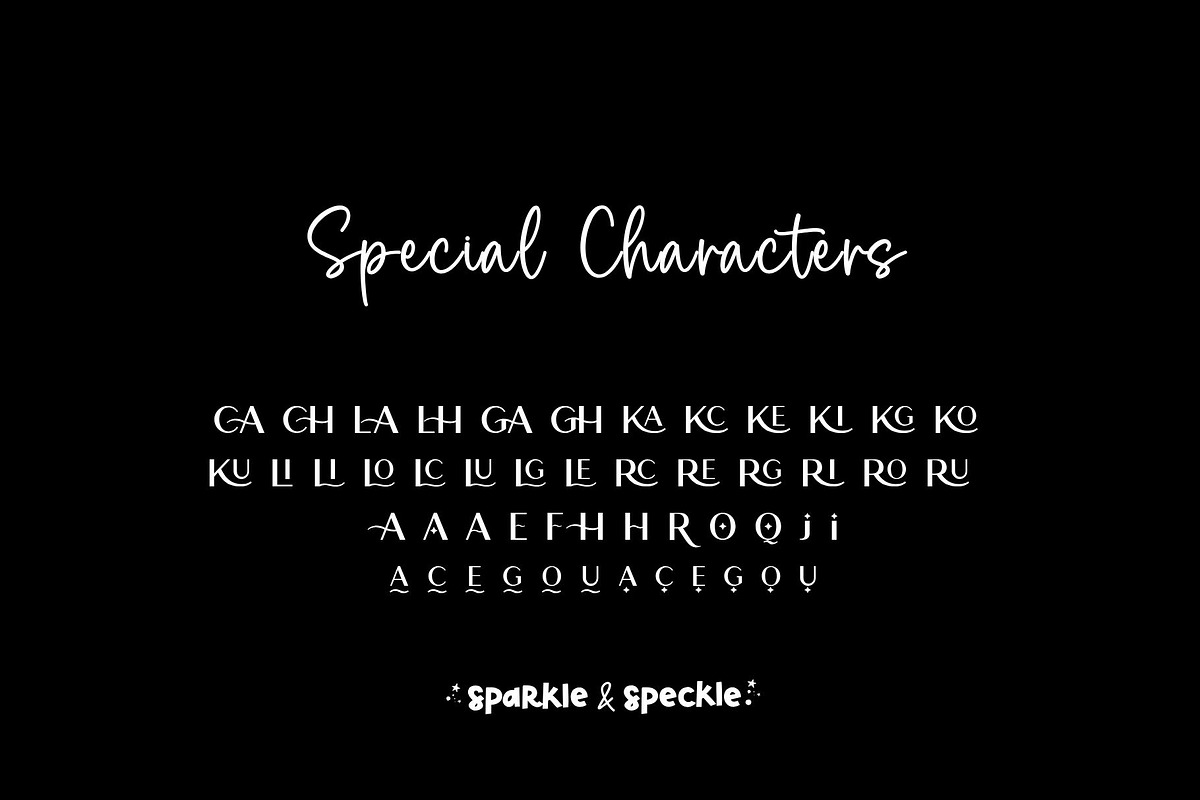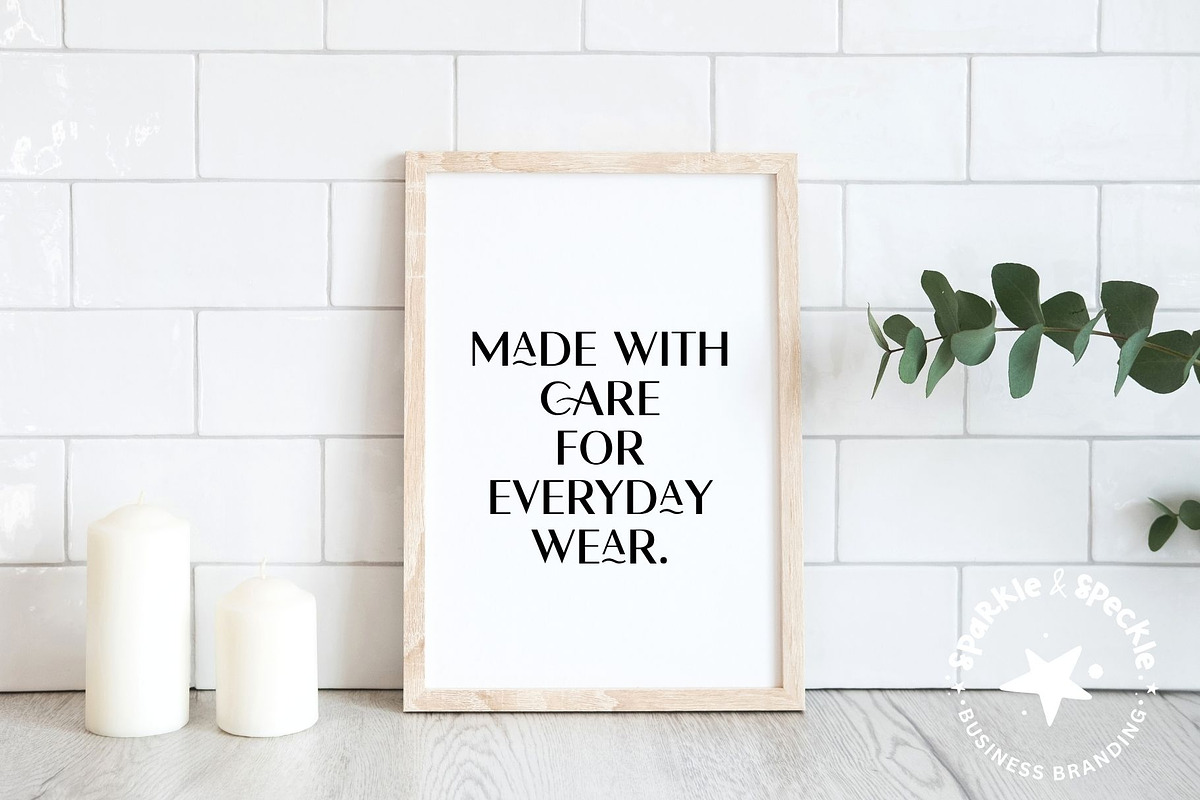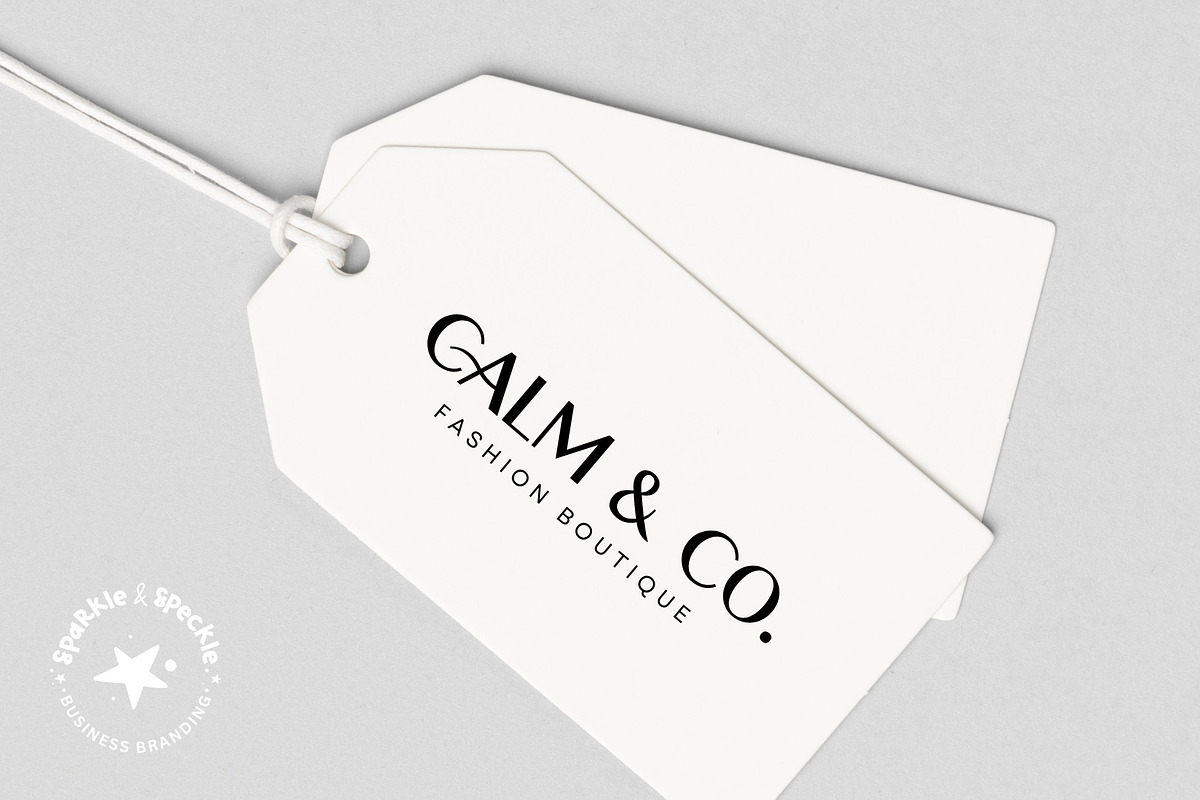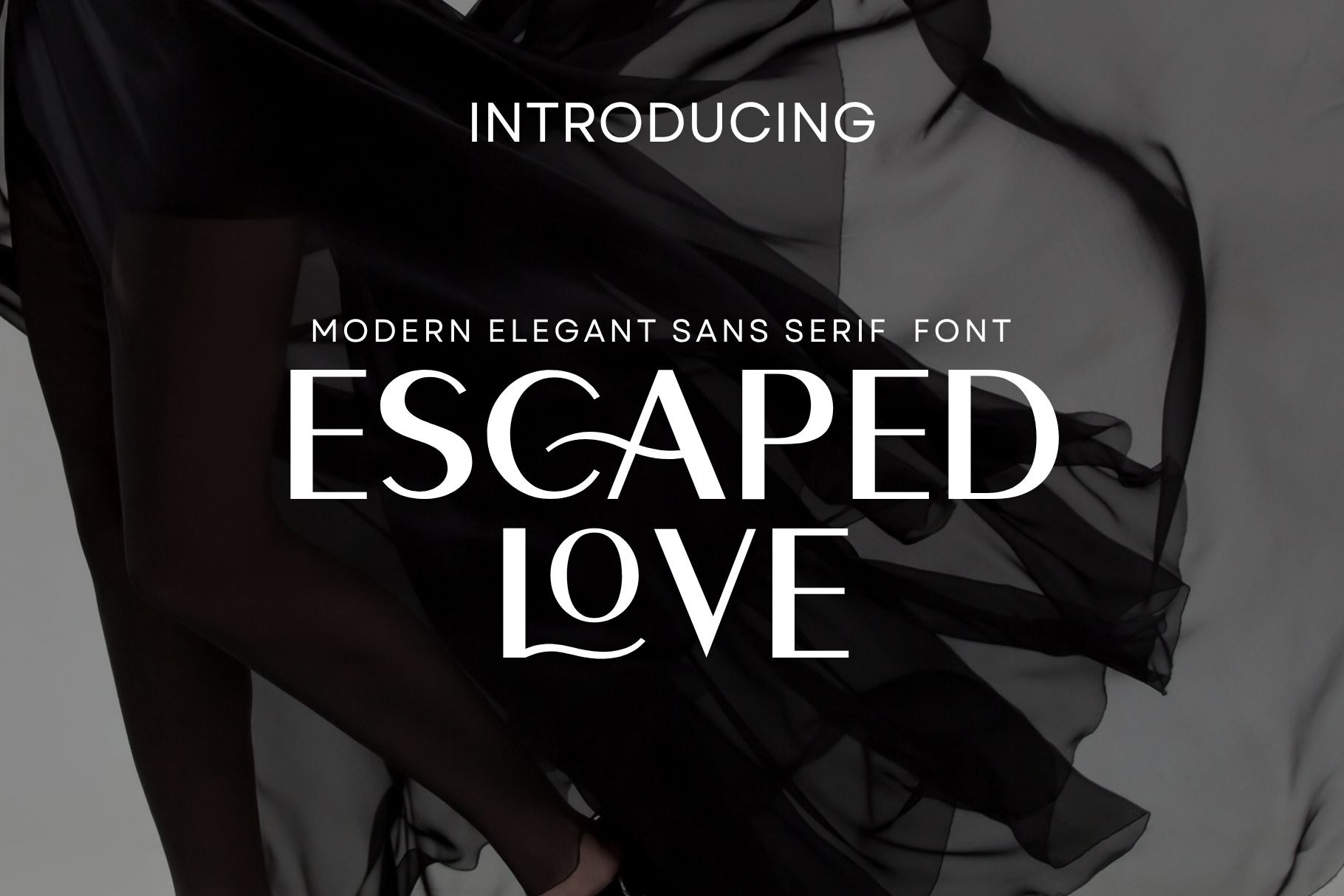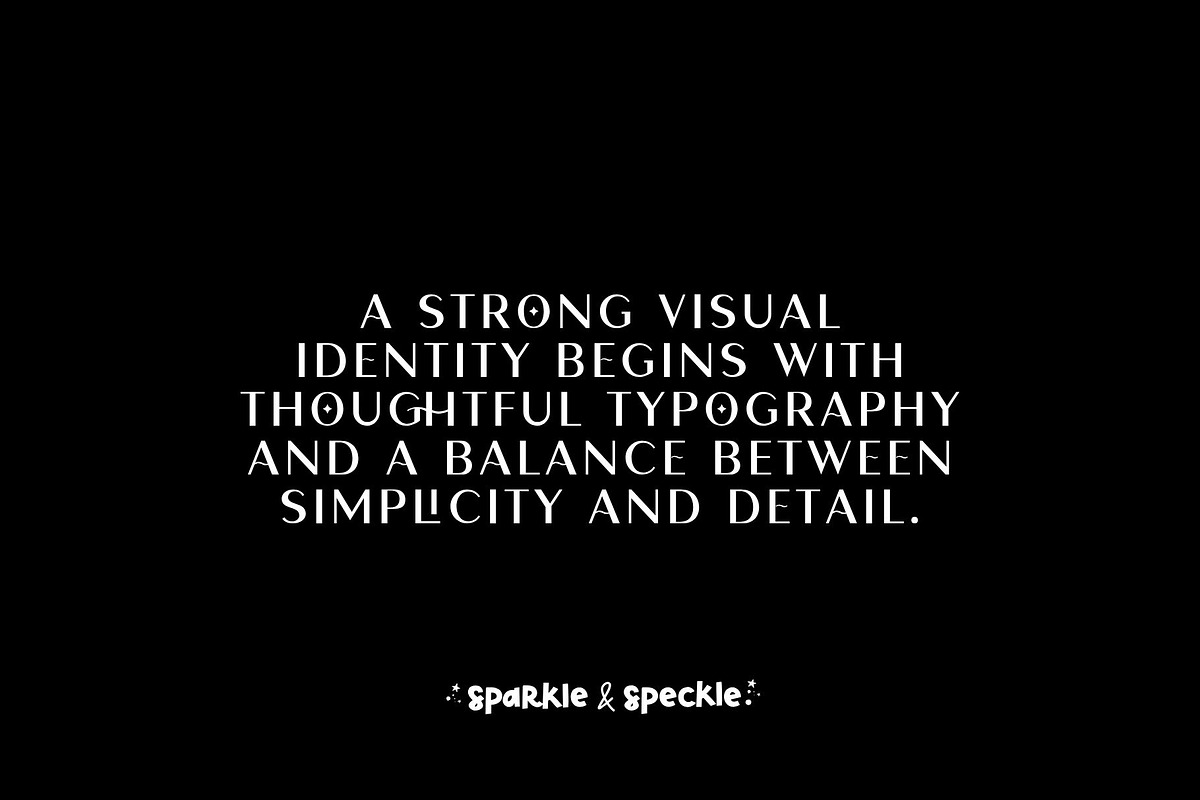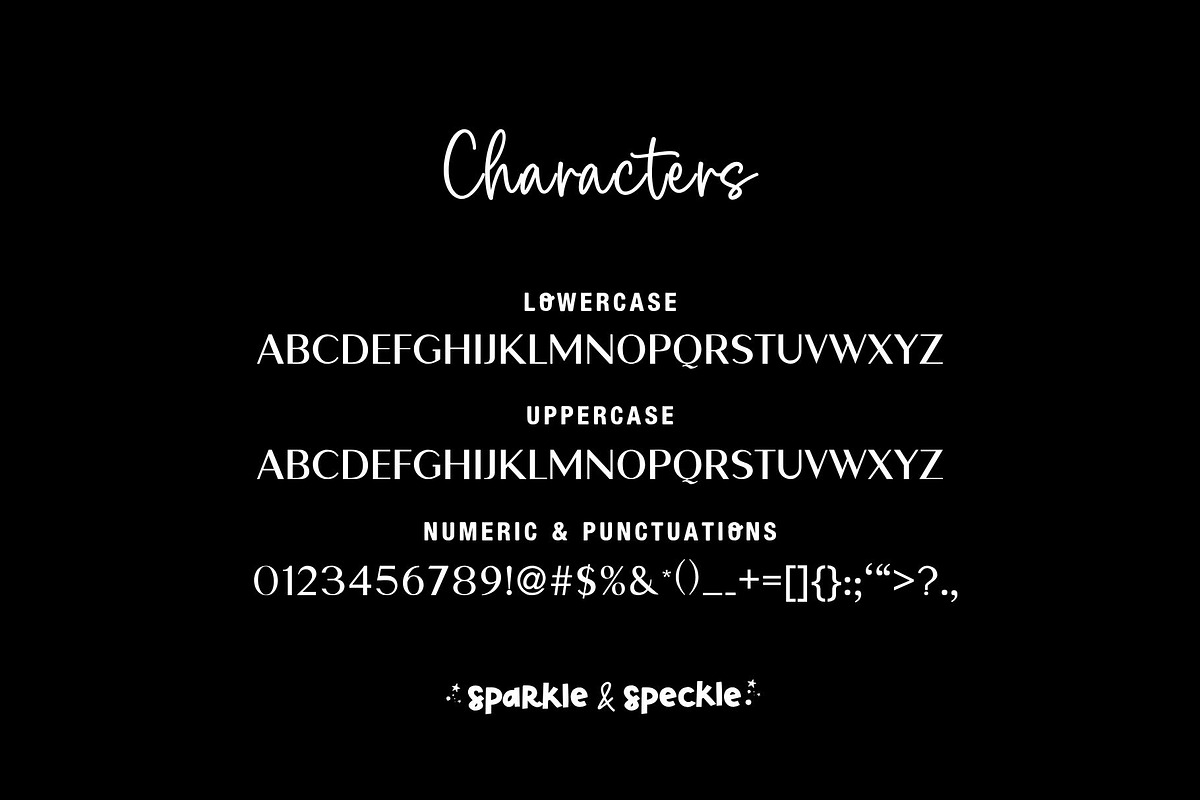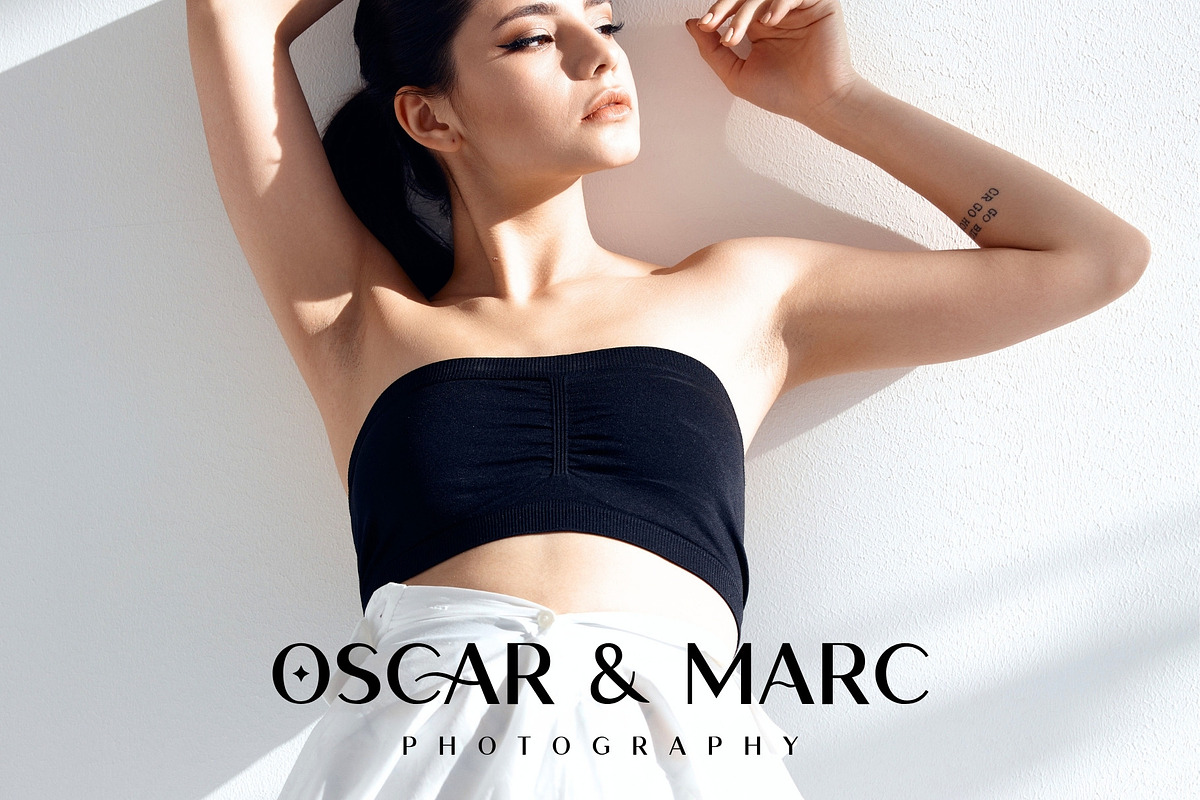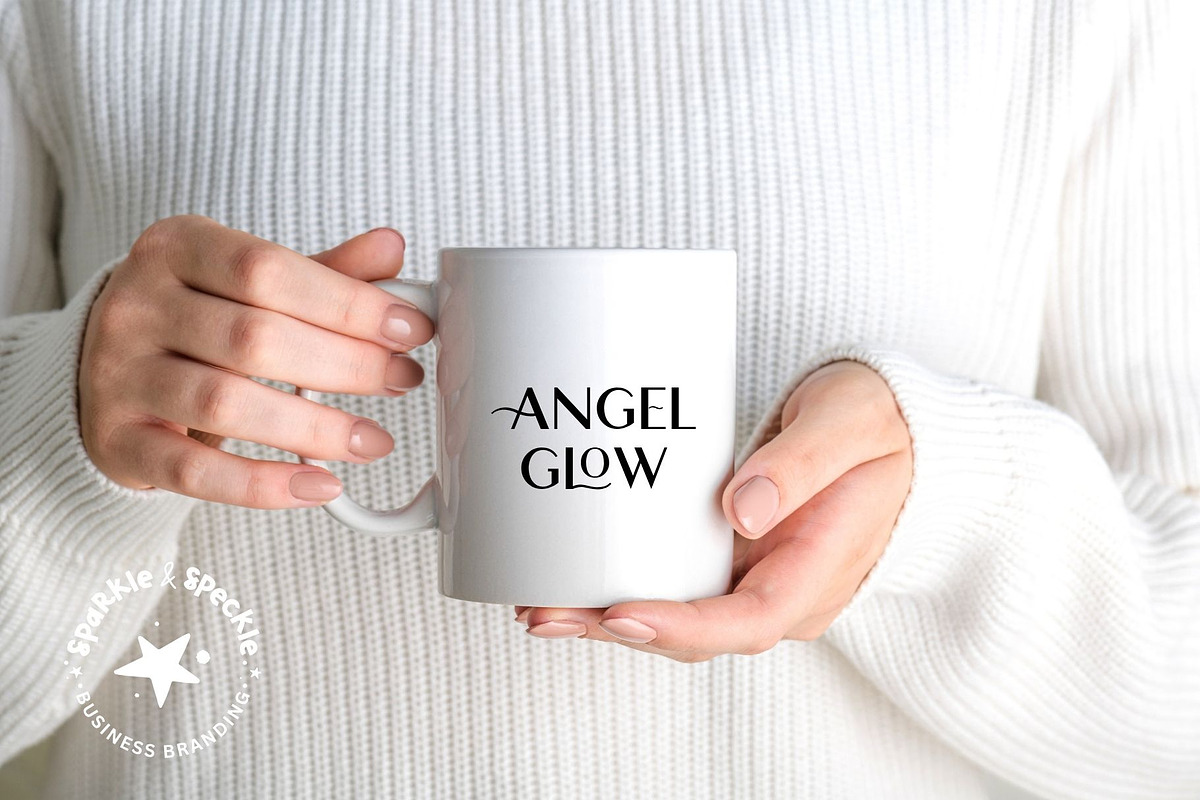
Escaped Love Sans Serif Font
Escaped Love is a refined sans serif display font designed for modern branding and editorial-style design.
With its thin, balanced letterforms and clean structure, this font creates a polished and sophisticated look while remaining highly readable. Subtle details and carefully crafted alternates add just enough character to elevate your designs without overwhelming them.
Escaped Love is ideal for designers and small business owners looking to create a cohesive, high-end visual identity across logos, packaging, and digital content.
The included alternate characters and decorative glyphs allow you to customize your typography and create more unique, brand-specific designs.
𝗣𝗘𝗥𝗙𝗘𝗖𝗧 𝗙𝗢𝗥:
• branding and logo design • fashion and boutique brands • beauty and wellness businesses • editorial layouts and magazines • packaging and product labels • wedding and event design • minimal and modern brands
𝗙𝗘𝗔𝗧𝗨𝗥𝗘𝗦:
• elegant sans serif display font • thin, refined letterforms • clean and minimal structure • modern editorial style • alternate characters and glyphs • easy to use for branding projects • suitable for print and digital use